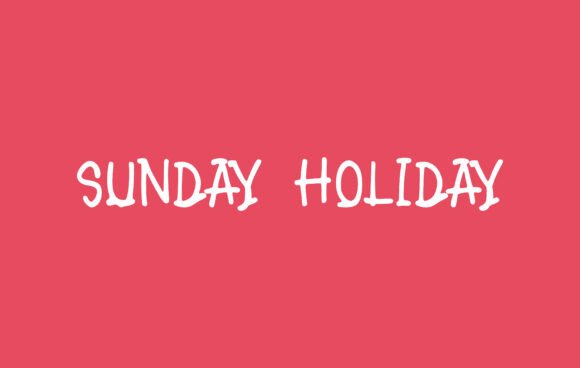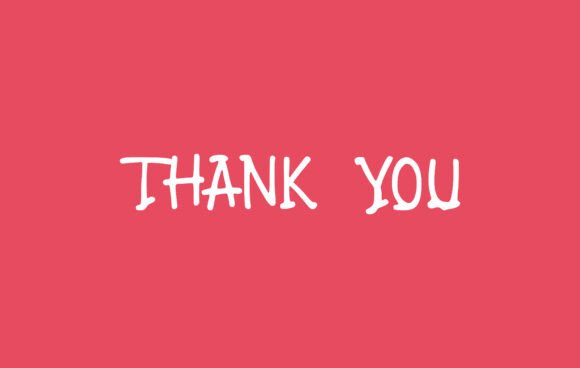
Introduction to Jaiden Font
There’s something magical about holding a beautiful wedding invitation or magazine cover in your hands, isn’t there? The way the words dance across the page, inviting you to step into a world of romance and wonder. As designers, we strive to create those moments, to craft words that transport and inspire. And one of the most essential tools in our creative arsenal is a great font.
That’s where Jaiden Font comes in – an authentic handwritten font that adds a touch of whimsy and elegance to any design project. Perfect for magazine headlines, social media, branding, and more, this high-quality font is a must-have for any creative project. With its transparent background and legible design, it’s a design resource that will elevate your work to the next level.
Key Features of Jaiden Font
- Features a transparent background, making it easy to layer and customize within design resources.
- Supports a wide range of languages, making it a versatile design resource for global creative projects.
- Available in a single style, with multiple weights and sizes, allowing for flexibility in design applications.
- Designed to work well at high resolutions, making it suitable for both web and print design projects.
Honest Review: Jaiden Font
As a designer, I’m always on the lookout for high-quality fonts to elevate my creative projects. Recently, I had the chance to try out the Jaiden Font, and I must say it’s been a game-changer for my design work. Here’s my honest review:
- ✨ Clean and modern design aesthetic that’s perfect for a variety of creative projects.
- ✨ Transparent background, which allows for seamless integration with any design element.
- ⚠️ Limited character set, which may be a drawback for designers who need a wide range of characters.
Overall impression:
The Jaiden Font is a fantastic addition to any designer’s toolkit. Its clean design and high-quality rendering make it perfect for a wide range of creative projects. While it may have some limitations, it’s a great resource for designers who are looking for a free font that’s easy to use and looks great.
Jaiden Font
What is Jaiden Font?
Jaiden Font is a high-quality, free download design resource ideal for creative projects. This font features a transparent background, making it versatile and easy to use in various design applications.
Tips for Getting the Most Out of Jaiden Font
Here are some tips to help you get the most out of Jaiden Font:
- Experiment with different font sizes and colors to create visually appealing designs.
- Combine Jaiden Font with other design elements, such as images and shapes, to add depth and interest to your designs.